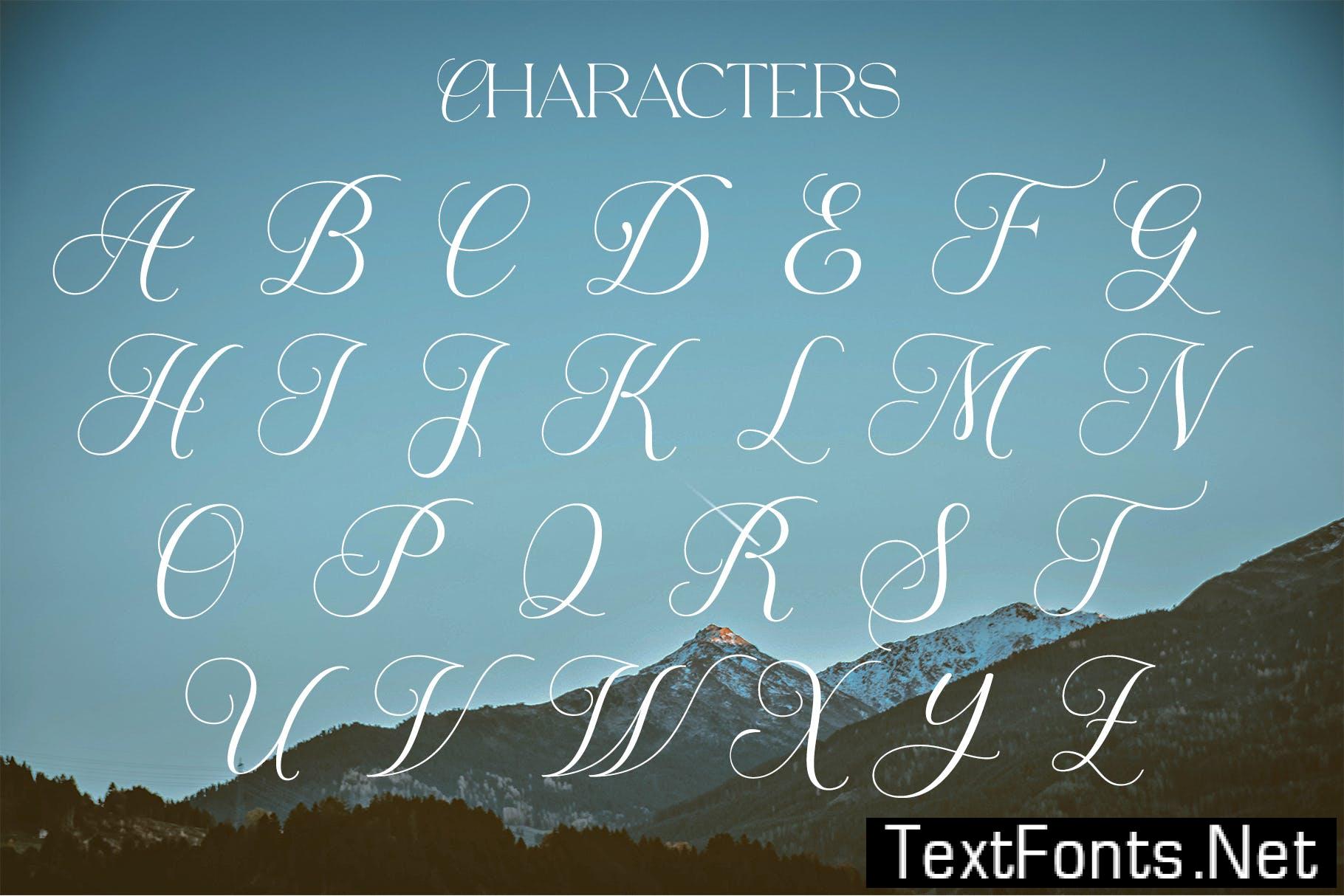
Forest Escape G42JBD8
Hello Guys! on this occasion, we would like to present a new product called “Escape Forest”, an attractive font that gives a simple and stylish impression, here we will see a feminine feel but it will also look good when you use it in a design that has a luxury style.